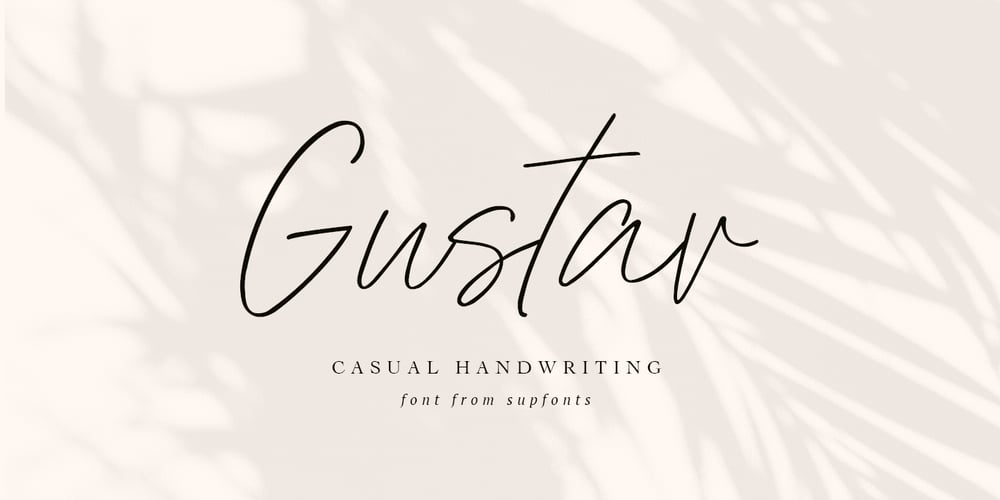
Gustav Font Family was designed by Dmitrii Chirkov and published by Supfonts. Gustav contains 1 styles and family package options. Gustav it is a Calligraphy chick font with exquisite accents. It is perfect for branding, wedding invitations and invitation cards and many moreWhat’s inside: Gustav Script Multilingual support Cricut support If you have any questions, please contact me directly or in instagram @supfonts